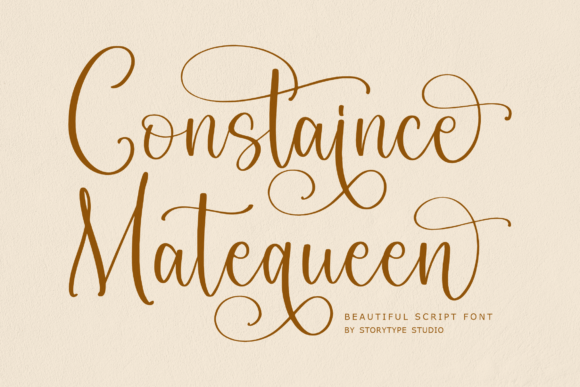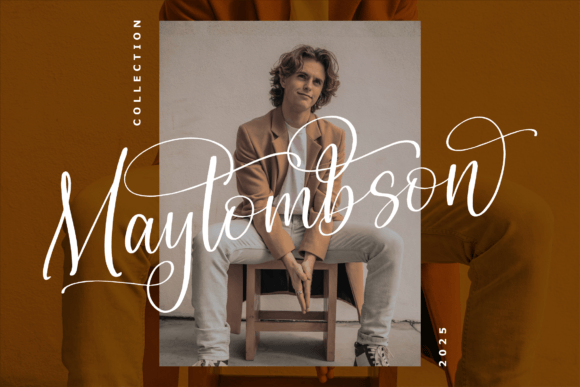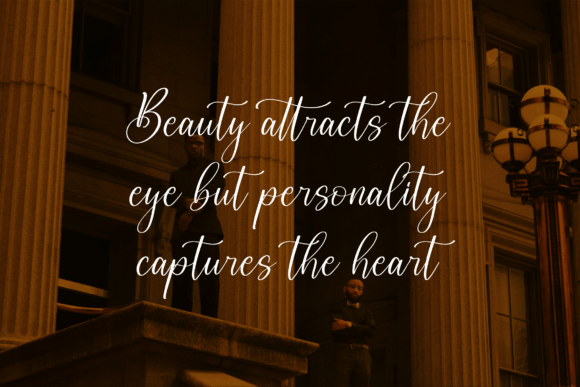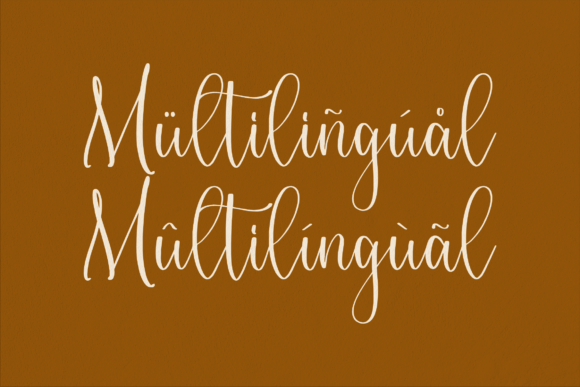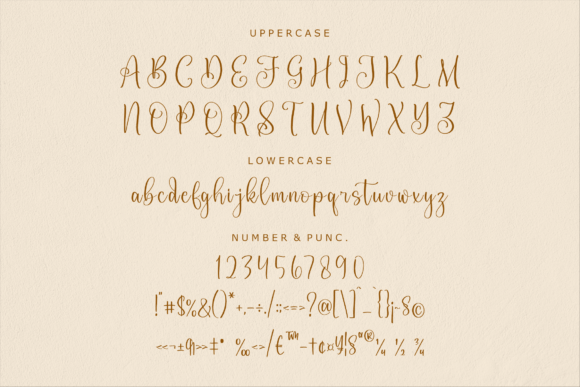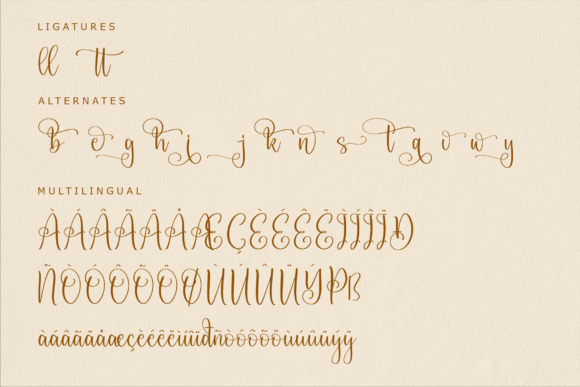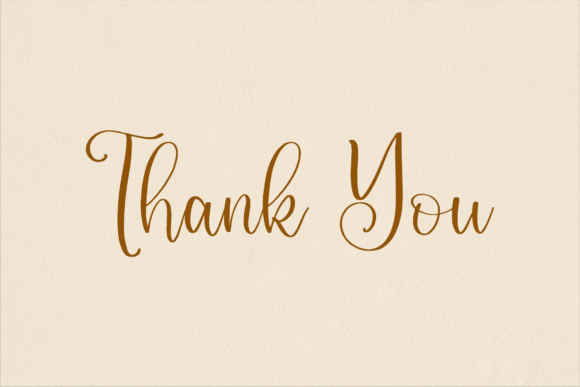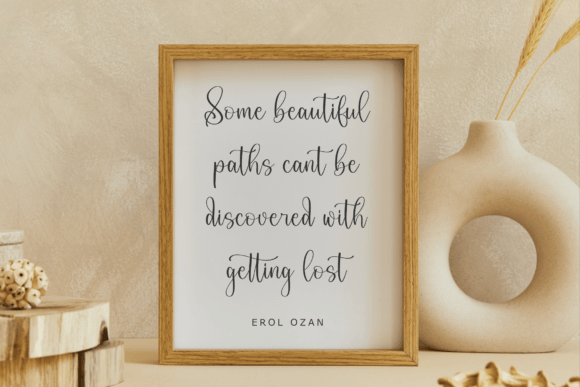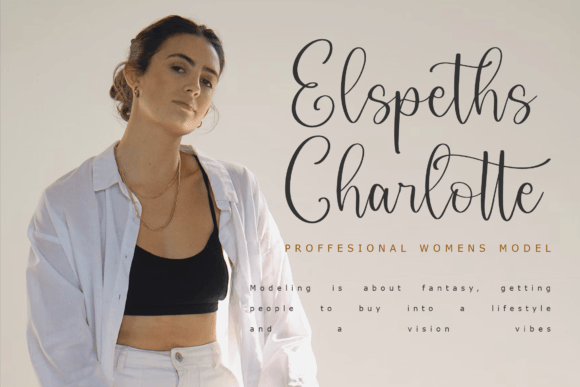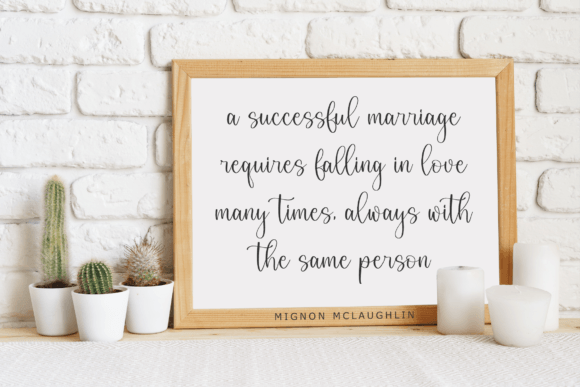
Constaince Matequeen Font
About Constaince Matequeen Font
Constaince Matequeen is a dazzling and sophisticated script font designed to elevate your creative projects. Every stroke has been carefully crafted to create a polished, high-quality look. Whether you’re working on elegant invitations or standout branding materials, this font delivers an unforgettable impression.
A Beautiful Script for All Occasions
Constaince Matequeen brings refined elegance to any design. The flowing curves and intricate letterforms make it the perfect choice for projects that need a graceful, handcrafted touch. Use it to create stunning:
• Wedding invitations and stationery
• Save-the-date cards
• Logo designs and brand signatures
• Product packaging and labels
• Greeting cards and thank you notes
• Event announcements and flyers
• Stylish posters and social media graphics
• Custom merchandise and apparel
This font adapts beautifully to a wide range of applications, making it an essential part of any designer’s toolkit.
Meticulously Crafted Details
What makes Constaince Matequeen unique is the attention to detail in every letter. The script feels fluid and organic, with delicate swashes and ligatures that create a natural handwritten appearance. Whether you type a single word or a complete sentence, your text will have a cohesive, elegant style.
Readable and Versatile
Even with its decorative flourishes, Constaince Matequeen remains highly legible. The balanced spacing and smooth strokes ensure that your text looks clear and professional at any size. Use it confidently in digital designs or printed materials. From large headlines to small captions, this font retains its beauty and impact.
Why Designers Love Constaince Matequeen
Designers choose this font because it offers:
• Elegance: A refined, polished appearance for luxury designs
• Versatility: Perfect for countless applications and industries
• Timeless Style: A classic look that won’t go out of fashion
• Professional Quality: Clean lines and balanced forms
Constaince Matequeen will quickly become a favorite in your font library.
Make Every Project Shine
Typography is the foundation of memorable design. When you use Constaince Matequeen, you bring an added layer of sophistication and beauty to every project. Whether you’re designing for weddings, fashion, branding, or special events, this font helps your work stand out.
Let Constaince Matequeen inspire your creativity and elevate your designs to new heights.